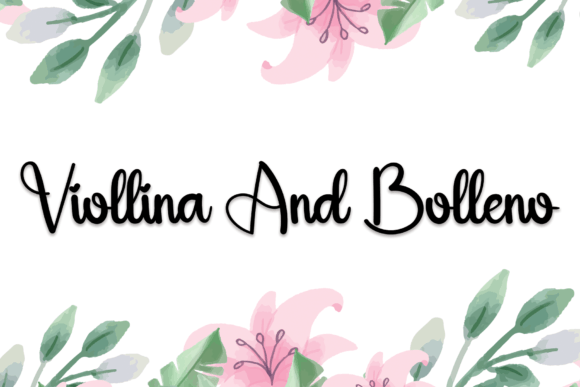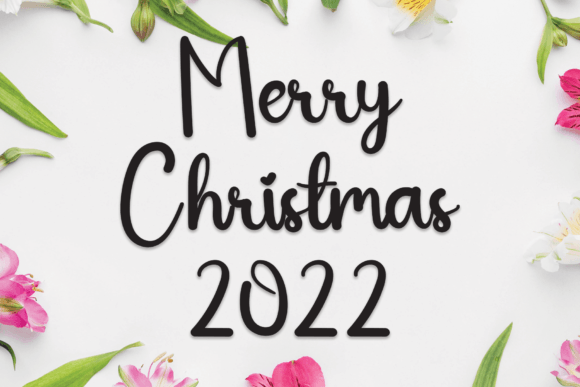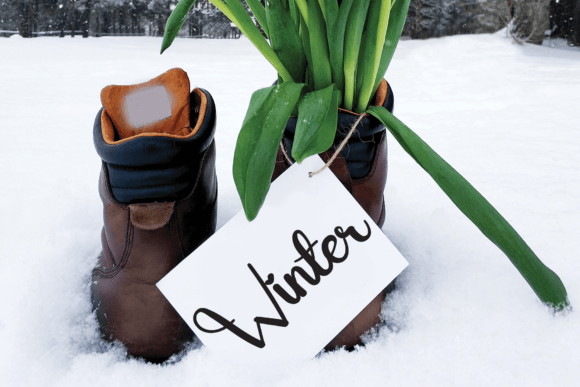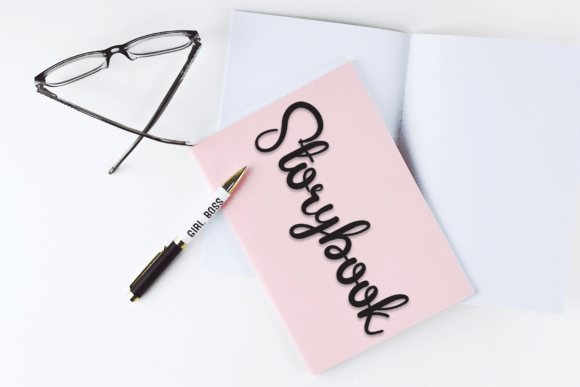
Introducing Costume Christmas Font: The Ultimate Handwritten Font for Festive Designs
Are you looking for a font that can add a personal touch to your Christmas designs? Look no further than Costume Christmas Font! This simple and friendly handwritten font is perfect for crafts, digital design, presentations, and creating greeting cards. In this article, we’ll explore the features and benefits of Costume Christmas Font, and why it’s about to become your go-to font for all your festive design needs.
What is Costume Christmas Font?
Costume Christmas Font is a beautiful, handwritten font that’s designed to bring a touch of warmth and personality to your designs. Its simple and friendly style makes it perfect for a wide range of applications, from crafting and DIY projects to digital design and presentations.
Key Features of Costume Christmas Font
- Handwritten style: Costume Christmas Font has a lovely handwritten style that’s perfect for creating personal and unique designs.
- Simple and friendly: The font’s simple and friendly style makes it easy to read and understand, even at small sizes.
- Versatile: Costume Christmas Font can be used for a wide range of applications, including crafts, digital design, presentations, and greeting cards.
Benefits of Using Costume Christmas Font
So why choose Costume Christmas Font for your festive designs? Here are just a few benefits of using this amazing font:
- Adds a personal touch: Costume Christmas Font’s handwritten style adds a personal touch to your designs, making them stand out from the crowd.
- Perfect for Christmas designs: The font’s festive style makes it perfect for Christmas designs, from greeting cards to holiday-themed crafts.
- Easy to read: The font’s simple and friendly style makes it easy to read, even at small sizes.
- Great for crafters and designers: Costume Christmas Font is perfect for crafters and designers who want to add a personal touch to their projects.
Tips and Tricks for Using Costume Christmas Font
Here are a few tips and tricks to help you get the most out of Costume Christmas Font:
- Experiment with different sizes: Experiment with different font sizes to create visual interest and hierarchy in your designs.
- Combine with other fonts: Combine Costume Christmas Font with other fonts to create a unique and eye-catching design.
- Use for headlines and body text: Use Costume Christmas Font for both headlines and body text to create a cohesive and visually appealing design.
In conclusion, Costume Christmas Font is a simple and friendly handwritten font that’s perfect for festive designs. Its versatile style and ease of use make it a great choice for designers and crafters of all levels. Whether you’re creating Christmas greeting cards, holiday-themed crafts, or digital designs, Costume Christmas Font is sure to become your go-to font for all your festive design needs.